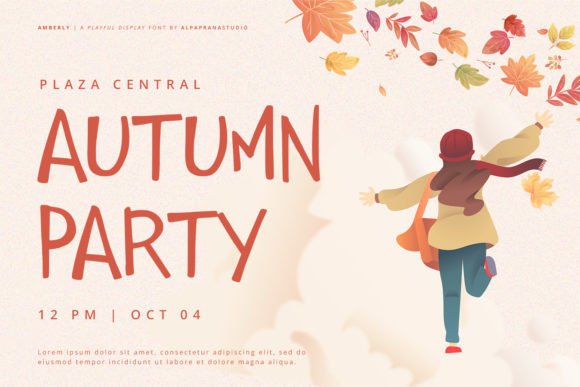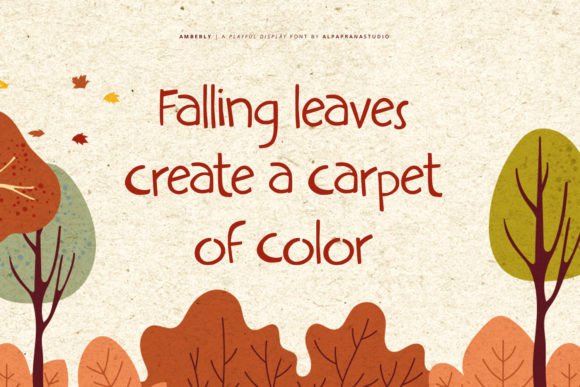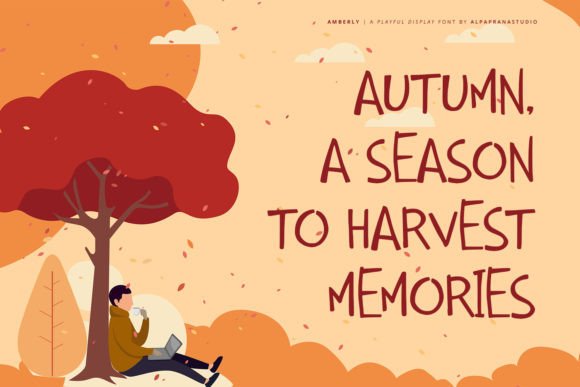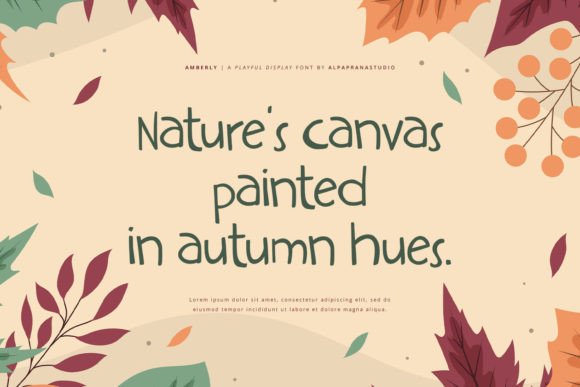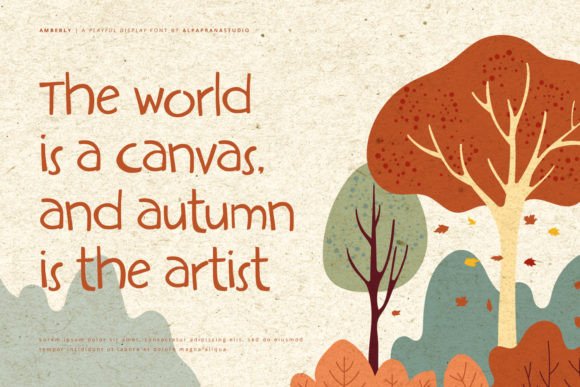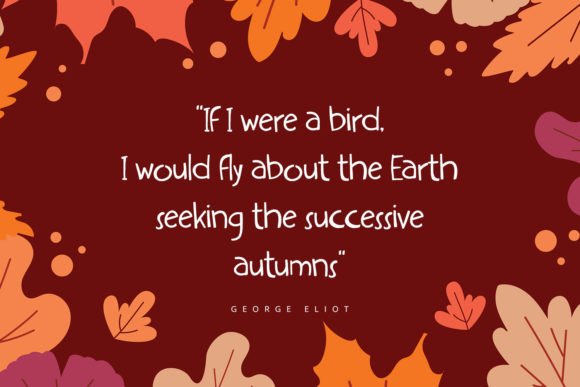
Introducing Amberly Font: The Playful Display Font for Modern Design Enthusiasts
Are you on the hunt for a font that embodies the perfect blend of playfulness and modernity? Look no further than Amberly Font! This delightful display font is designed to bring a touch of whimsy and freshness to your design projects, making it an ideal choice for creatives and designers alike. In this article, we’ll dive into the world of Amberly Font, exploring its features, uses, and benefits, as well as provide tips on how to make the most of this versatile typeface.
What is Amberly Font?
Amberly Font is a carefully crafted display font that exudes a sense of cuteness and modernity. Its playful aesthetic makes it perfect for a wide range of design applications, from branding and logo design to lettering, packaging, and more. Whether you’re working on a personal project or a client’s, Amberly Font is sure to add a dash of personality and flair to your work.
Key Features of Amberly Font
- Playful and Modern Design: Amberly Font boasts a unique and captivating design that’s both playful and modern. Its distinctive style is sure to make your designs stand out from the crowd.
- Versatile and Adaptable: This font is incredibly versatile and can be used for a wide range of design projects, including branding, logo design, lettering, and more.
- Easy to Read: Despite its playful nature, Amberly Font remains easy to read, making it perfect for use in various design applications, from posters and magazines to packaging and clothing.
Uses of Amberly Font
Amberly Font is a versatile typeface that can be used in a multitude of design projects, including:
- Branding: Create a memorable brand identity with Amberly Font, perfect for logos, business cards, and more.
- Logo Design: Design a unique and captivating logo that showcases your brand’s personality with Amberly Font.
- Lettering: Add a touch of whimsy to your lettering projects with Amberly Font’s playful and modern design.
- Logotype: Create a stunning logotype that combines typography and imagery with Amberly Font.
- Clothing and Apparel: Add a fashionable touch to your clothing and apparel designs with Amberly Font, perfect for t-shirts, hoodies, and more.
- Posters and Magazines: Create eye-catching posters and magazine layouts with Amberly Font’s bold and playful design.
- Packaging: Stand out on store shelves with Amberly Font’s unique and captivating design, perfect for product packaging and labels.
- Photography: Add a touch of personality to your photography projects with Amberly Font, perfect for captions, titles, and more.
- Special Events: Create memorable event branding and promotional materials with Amberly Font, perfect for weddings, conferences, and more.
Benefits of Using Amberly Font
So, why choose Amberly Font for your design projects? Here are just a few benefits of using this versatile typeface:
- Unique and Memorable: Amberly Font’s playful and modern design ensures that your designs will stand out from the crowd and leave a lasting impression.
- Time-Saving: With Amberly Font, you can create stunning designs in no time, thanks to its easy-to-read and versatile design.
Tips and Tricks for Using Amberly Font
To get the most out of Amberly Font, here are a few tips and tricks to keep in mind:
- Experiment with Colors: Amberly Font looks stunning in a variety of colors, so don’t be afraid to experiment and find the perfect hue for your design.
- Mix and Match: Combine Amberly Font with other fonts and design elements to create a unique and captivating design.
- Pay Attention to Kerning: Make sure to adjust the kerning to ensure that your text looks balanced and visually appealing.
In conclusion, Amberly Font is a versatile and captivating display font that’s perfect for designers and crafters looking to add a touch of playfulness and modernity to their design projects. With its unique design, ease of use, and cost-effective pricing, Amberly Font is an excellent choice for anyone looking to elevate their designs and make a lasting impression.